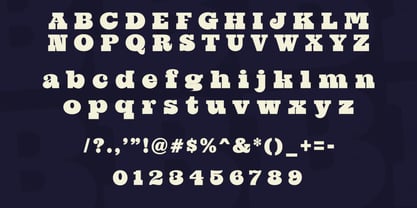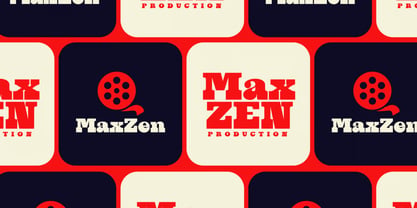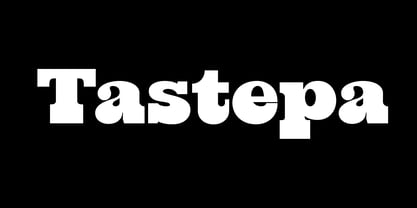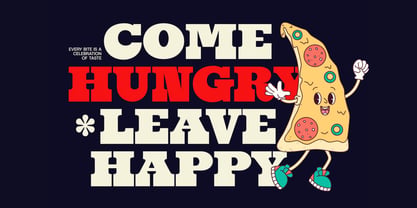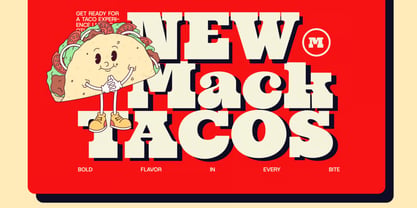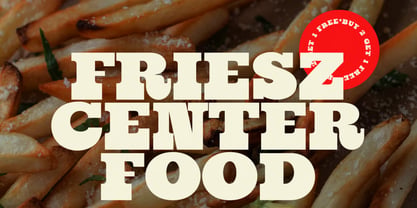
Tastepa
Die Schriftfamilie Tastepa wurde von Hasnat Khan entworfen und von Hasnat Studio veröffentlicht. Tastepa enthält 1 Stile. Mehr über diese Familie
Tastepa is a bold serif display font that combines vintage charm, retro personality, and modern versatility into one unforgettable typeface. Designed with chunky letterforms, thick curves, and soft rounded edges, Tastepa delivers a playful yet powerful visual presence that instantly captures attention.
Inspired by classic retro typography, this font brings warmth, nostalgia, and character to every design. Its bold structure creates strong impact, while its friendly curves make it approachable and stylish. Whether you're creating branding for a trendy restaurant, designing a vintage-inspired poster, or developing eye-catching merchandise, Tastepa provides the perfect balance of boldness and personality.
From packaging and logos to event promotions and social media graphics, Tastepa helps your designs stand out with confidence and timeless retro appeal.
Key Features:
• Bold Retro Serif Design: Vintage-inspired letterforms with a modern creative twist.
• Chunky & Playful Character: Thick curves and soft edges create a friendly, memorable appearance.
• Strong Display Impact: Perfect for attention-grabbing headlines and branding.
• Uppercase & Lowercase Letters: Complete character set for flexible typography.
• Numbers, Punctuation & Symbols: Essential characters for professional design work.
• Multilingual Support: Suitable for international branding and global audiences.
• Optimized for Print & Web: Crisp performance across digital and physical media.
• Highly Versatile Style: Suitable for both playful and professional creative projects.
Perfect For:
• Vintage Branding & Logo Design: Create memorable brands with retro personality.
• Restaurant & Café Branding: Ideal for menus, signage, packaging, and promotional materials.
• Product Packaging & Labels: Add charm and character to food, beverage, and lifestyle products.
• Event Posters & Festival Graphics: Perfect for music events, retro-themed campaigns, and creative promotions.
• Fashion & Apparel Design: Great for clothing brands, merchandise, and streetwear collections.
• Social Media Graphics: Create bold, shareable content that stands out online.
• Advertising & Marketing Campaigns: Deliver strong messages with distinctive typography.
Make a bold statement with Tastepa—a retro serif display font packed with vintage charm, playful energy, and creative versatility. Perfect for branding, packaging, logos, posters, apparel, restaurant designs, social media graphics, and standout visual identities that leave a lasting impression.